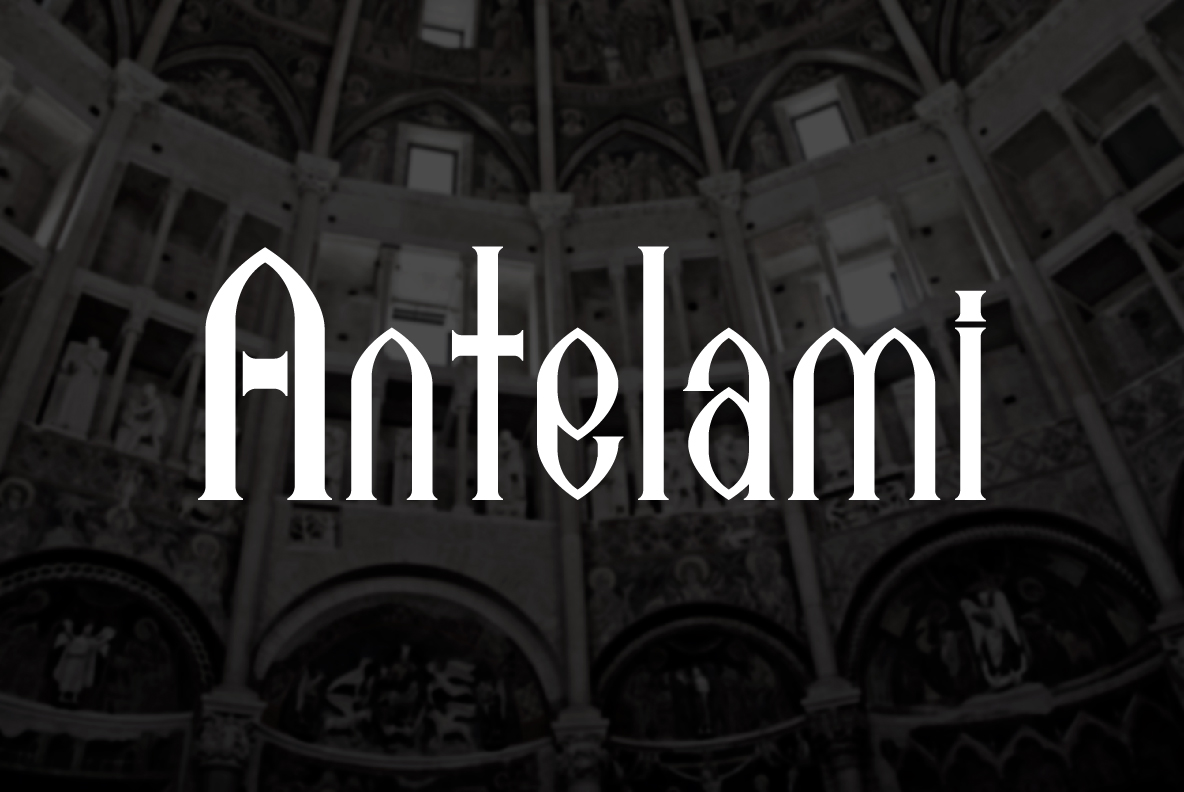
The Moody Charm of Antelami Font: A Designer’s Delight
I still remember the design project that led me to discover the Antelami font. I was working on a branding campaign for a luxury candle company, and I needed a font that would evoke a sense of history, mystery, and sophistication. After hours of scrolling through font libraries, I stumbled upon Antelami, and it was love at first sight. The unique blend of Romanesque and Gothic styles, with its distinctive serifs and endings, perfectly captured the essence of my client’s brand. In this article, I’ll share my experience with Antelami, its features, and how to make the most of this beautiful font.
An Honest Review of Antelami Font
What I Love About Antelami ✨
- ✅ Unique blend of Romanesque and Gothic styles, perfect for designs that require a touch of history and mystery
- ✅ Beautiful serifs and endings that add a level of sophistication to any design
- ✅ Supports multiple languages, making it a great choice for international brands
While Antelami is an amazing font, it’s not without its quirks. Here are a few things to keep in mind:
- 🤔 Some users have reported that the font can be a bit too ornate for certain designs, so it’s essential to use it judiciously
- ⚠️ The font’s unique style may not be suitable for very long blocks of text, as it can be a bit tiring to read
The Backstory of Antelami Font
According to legend, Antelami was inspired by the stunning architecture of the Romanesque and Gothic periods. The font’s creator, a talented typographer, wanted to capture the essence of this bygone era and bring it to life in a modern font. The result is Antelami, a font that’s both elegant and mysterious.
Q: What is the Antelami font style?
A: Antelami is a font with a unique blend of Romanesque and Gothic styles, characterized by its distinctive serifs and endings.
Q: Is Antelami suitable for body text?
A: While Antelami is highly legible, it’s best suited for headings, titles, and short blocks of text. For longer blocks of text, a simpler font may be more suitable.
Q: Does Antelami support multiple languages?
A: Yes, Antelami supports multiple languages, making it a great choice for international brands and projects.